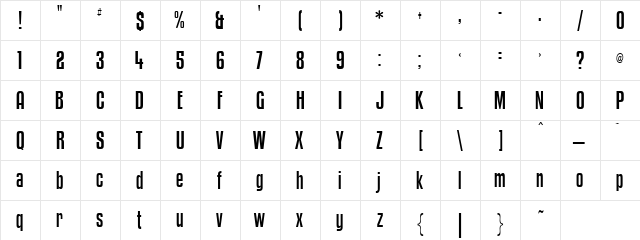
Maggi Terrace Regular
Design Context for Maggi Terrace Typeface
Maggi Terrace is a composed and adaptable typeface that performs quietly and consistently across a wide range of design contexts.